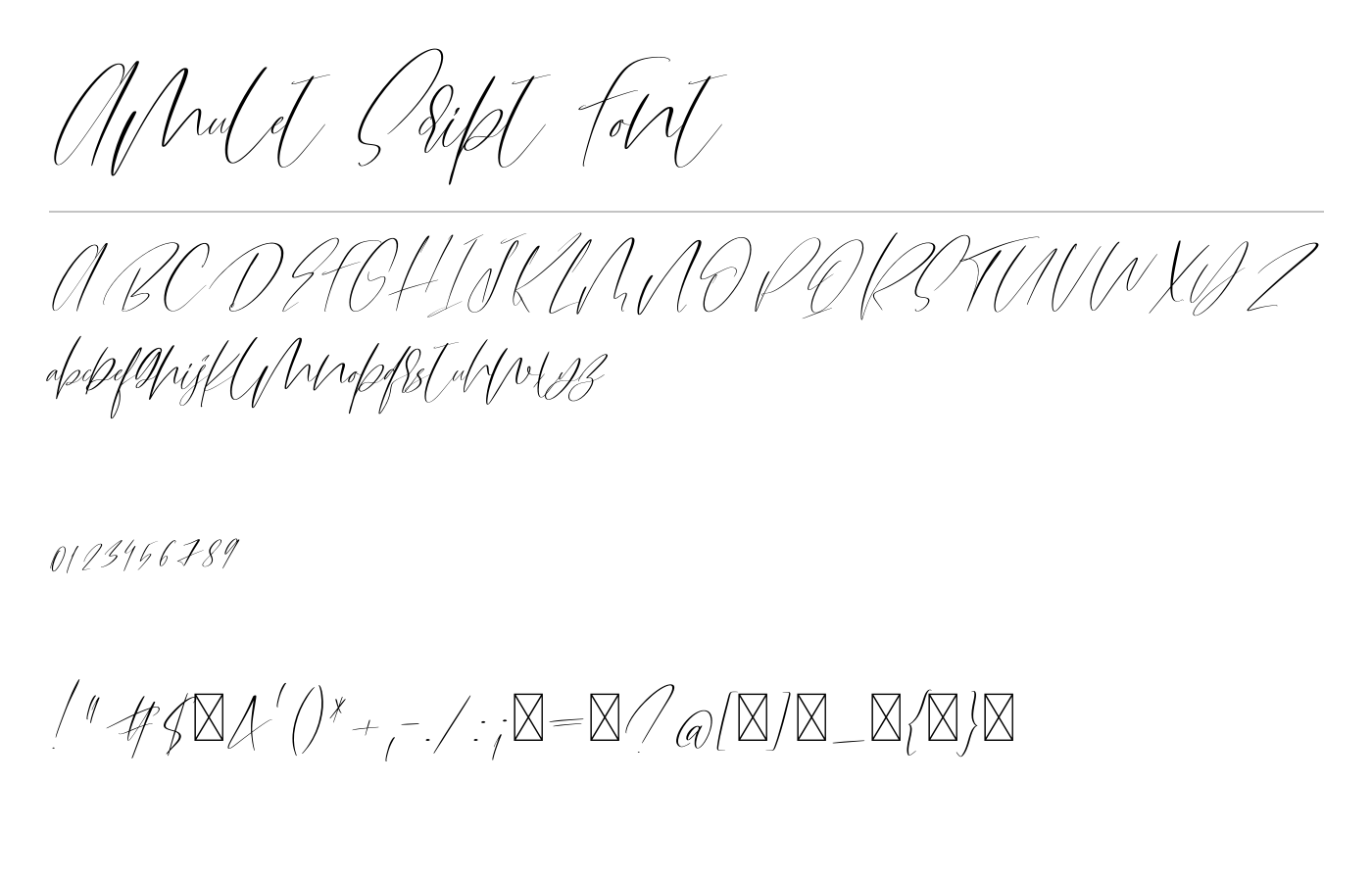
Amulet Script Font is a delicate and elegant handwritten script with slender, flowing strokes that convey a sense of grace and sophistication. Its thin weight and high contrast give it a light and airy feel, making it ideal for luxury branding, invitations, and artistic designs where a refined, personal touch is desired. This font works best in larger sizes for headlines or decorative text, bringing an expressive and stylish flair to your projects.
Amulet Script Font
About Amulet Script Font